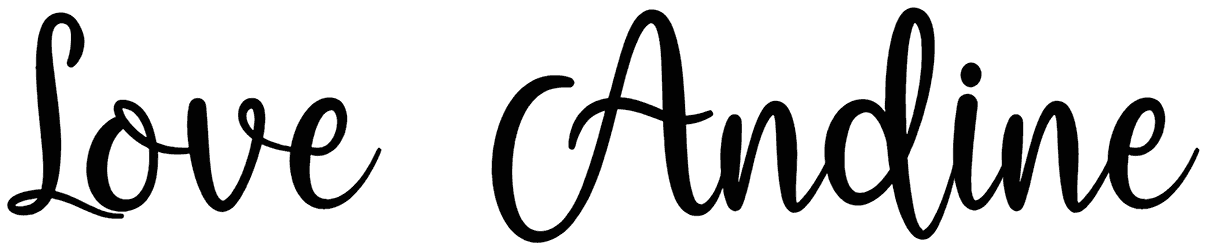
Love Andine Font
Love Andine, a script calligraphy font, is perfect for adding authenticity to your digital projects. Surprisingly, this font is a little more difficult to read, but it still feels modern, which is a benefit. If you’re working on a commercial, greeting card, or decorative project, this love font is perfect.